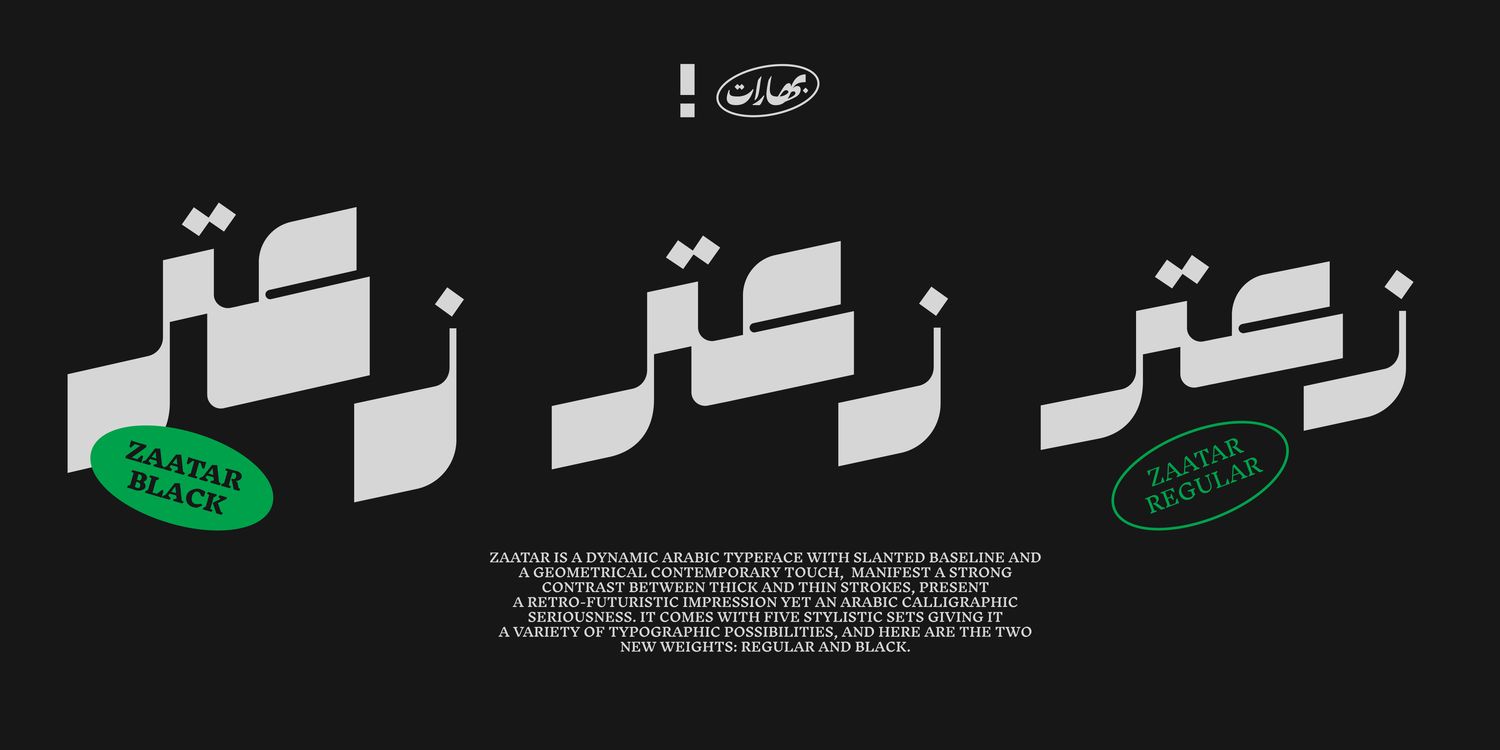
Zaatar is a dynamic Arabic typeface abstracted from a mixture of Arabic Ruq’ah and Nastaliq, the slanted baseline with a geometrical contemporary touch, manifest a strong contrast between thick and thin strokes, present a retro-futuristic impression yet an Arabic calligraphic seriousness. and it comes with five stylistic sets giving it a variety of typographic possibilities.
Zaatar means thyme, which was first cultivated in Mediterranean Levant, then used by ancient Egyptians for embalming. That's why we found it a perfect name for the first collaboration between Boharat (Cairo) and Hey Porter! (Jordan).